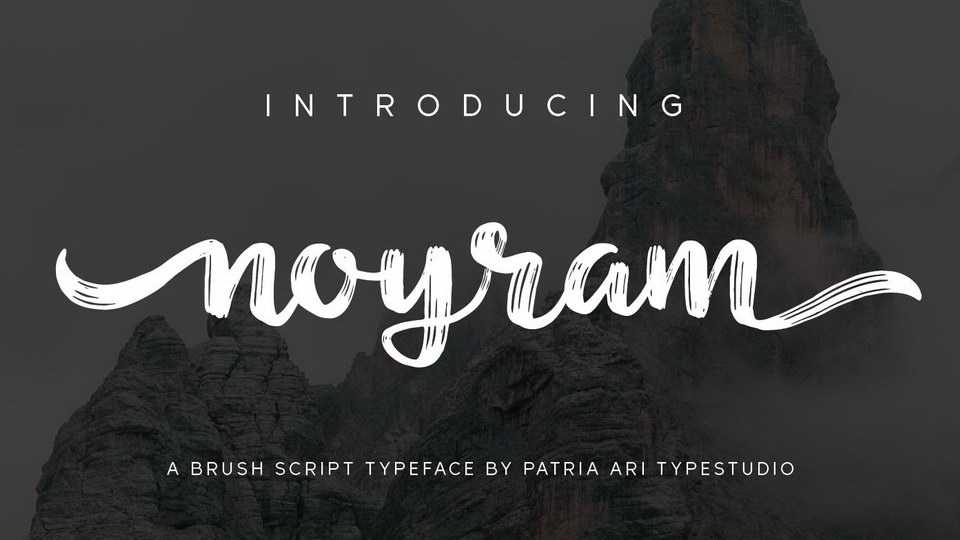
Download Noyram font, a strong brush script typeface with stunning alternate glyphs. Noyram is perfect for branding projects, logo, social media posts, advertisements, product packaging, product designs, label, and any projects that you work on.